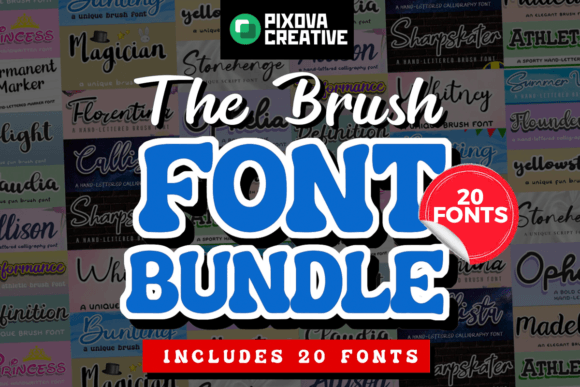
Unlock Your Creative Potential with the 20 Crafty Brush Bundle Font
Have you ever been in the middle of a design project, and suddenly, you’re stuck on finding the perfect font? I recall a particularly frustrating experience when a client asked for a logo that screamed “vintage charm” and “modern sophistication” at the same time. I scoured the internet for hours, only to end up with a mediocre result that didn’t quite hit the mark. That’s when I wished I had the 20 Crafty Brush Bundle Font at my disposal. This incredible collection of 20 unique, hand-crafted brush fonts would have been a game-changer for my project, and I’m excited to share its awesomeness with you! ✨
What’s Inside the 20 Crafty Brush Bundle Font?
The 20 Crafty Brush Bundle Font is a treasure trove of creative possibilities. With 20 distinct brush fonts, you’ll have an impressive range of styles to choose from, ensuring your designs always stand out. Whether you’re crafting a logo, tagline, or brand name, this bundle provides the perfect tools to make your project memorable and distinctive.
Honest Review: The Good, the Great, and the Quirks
- ✨ Diverse collection: 20 unique brush fonts that cater to various design needs and styles.
- 💫 High-quality design: Each font is hand-crafted, ensuring a personal touch and distinctive character.
- 📈 Scalability: Perfect for both small and large projects, from business cards to billboards.
While the 20 Crafty Brush Bundle Font is incredibly versatile, there are a few minor considerations to keep in mind:
- 🤔 Learning curve: With so many fonts and features, it might take some time to explore and master the bundle’s full potential.
The Story Behind the 20 Crafty Brush Bundle Font
The 20 Crafty Brush Bundle Font was created with the goal of providing designers, crafters, and creative hobbyists with a versatile and inspiring collection of brush fonts. The designer, a passionate typographer, aimed to craft a set of fonts that would not only be visually appealing but also easy to use and adaptable to various design projects. Through hours of meticulous work, the designer carefully crafted each font to ensure a unique character and personality, resulting in a bundle that’s both diverse and cohesive.